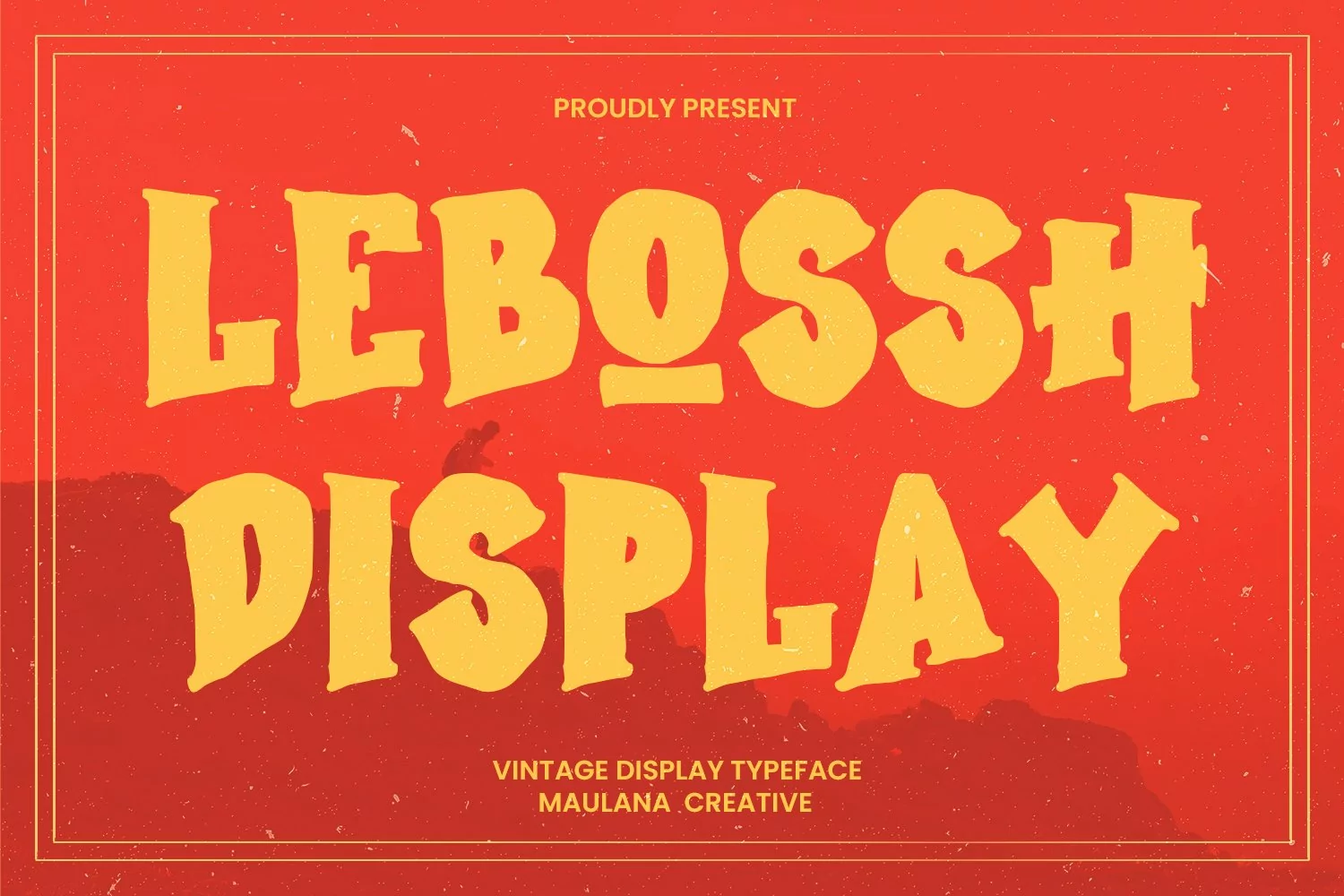
Lebossh vintage display typeface. Heavy stroke, fun character with a bit of ligatures. To give you an extra creative work. Lebossh vintage display typeface support multilingual more than 100+ language. This font is good for logo design, Social media, Movie Titles, Books Titles, a short text even a long text letter and good for your secondary text font with script or serif. Make a stunning work with Lebossh vintage display typeface.